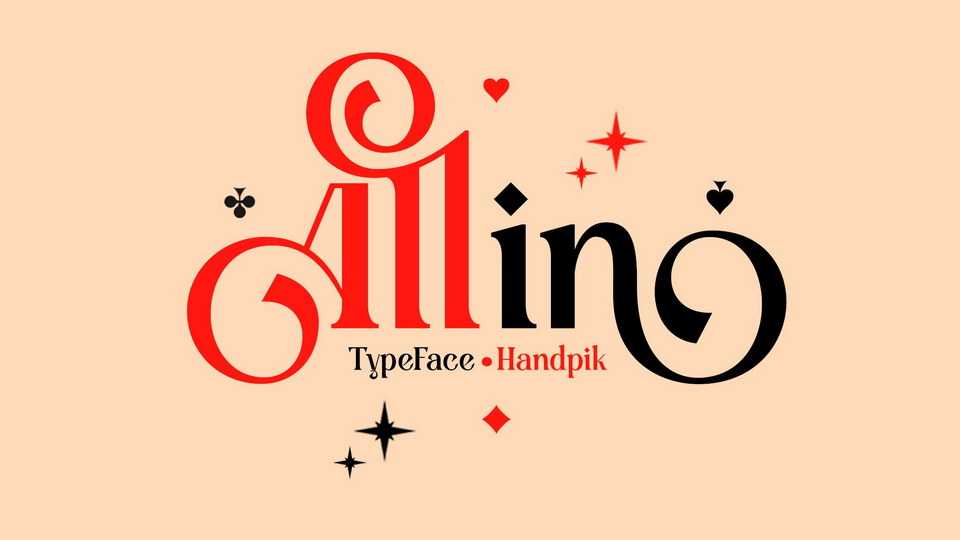
Download All In font, an elegant and modern serif typeface with a unique look. All In is suitable for logos, invitation cards, decorations, clothing products, greeting cards and others.
Designer: Handpik Design